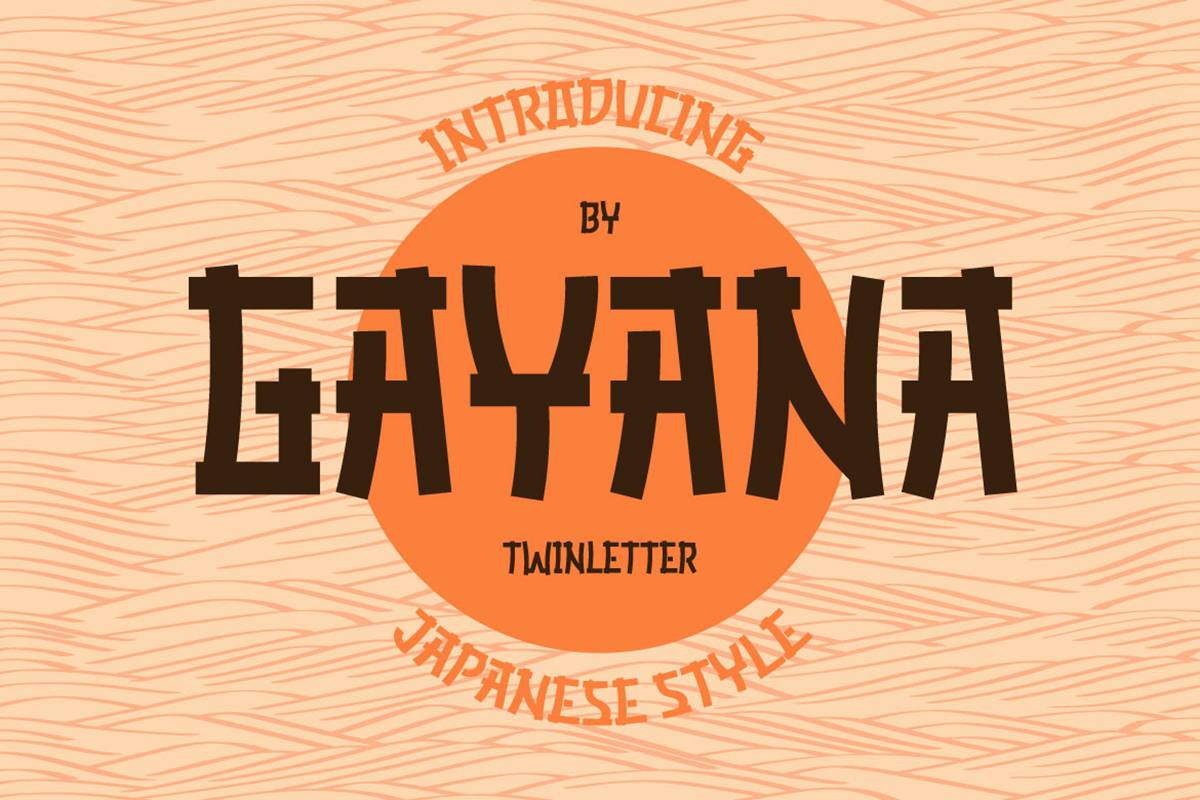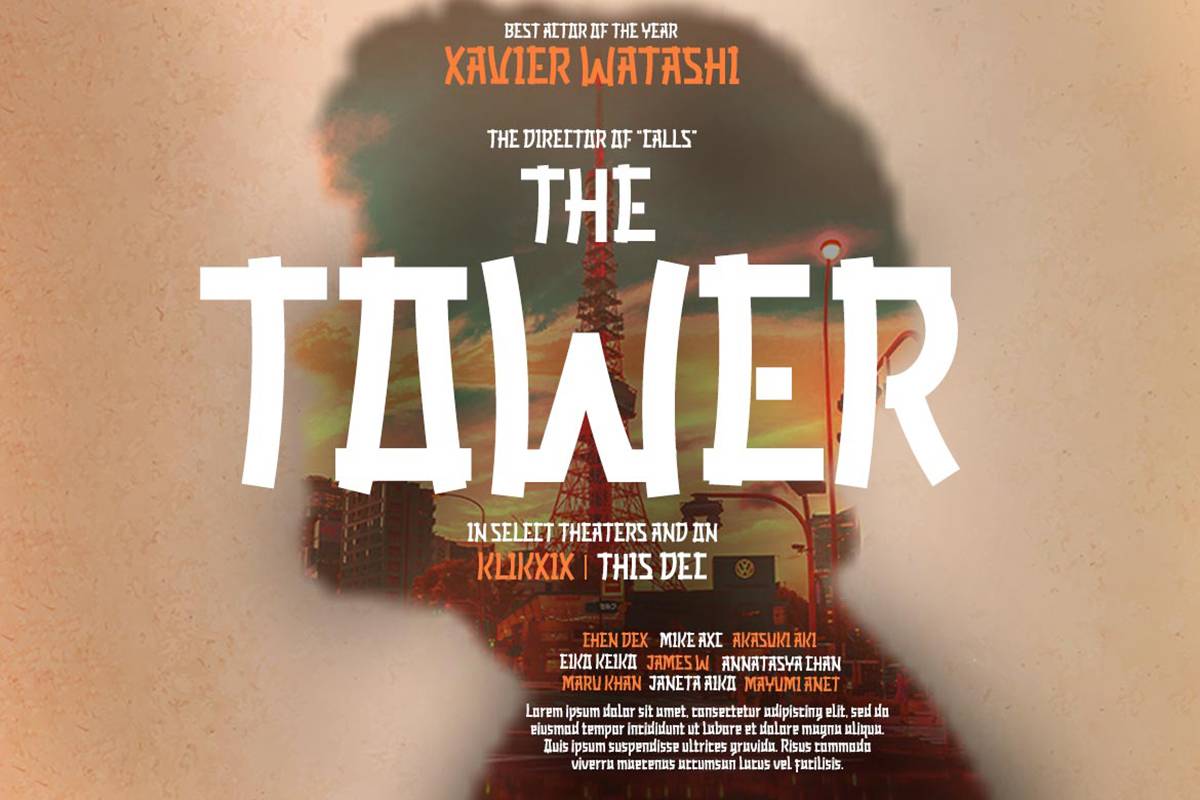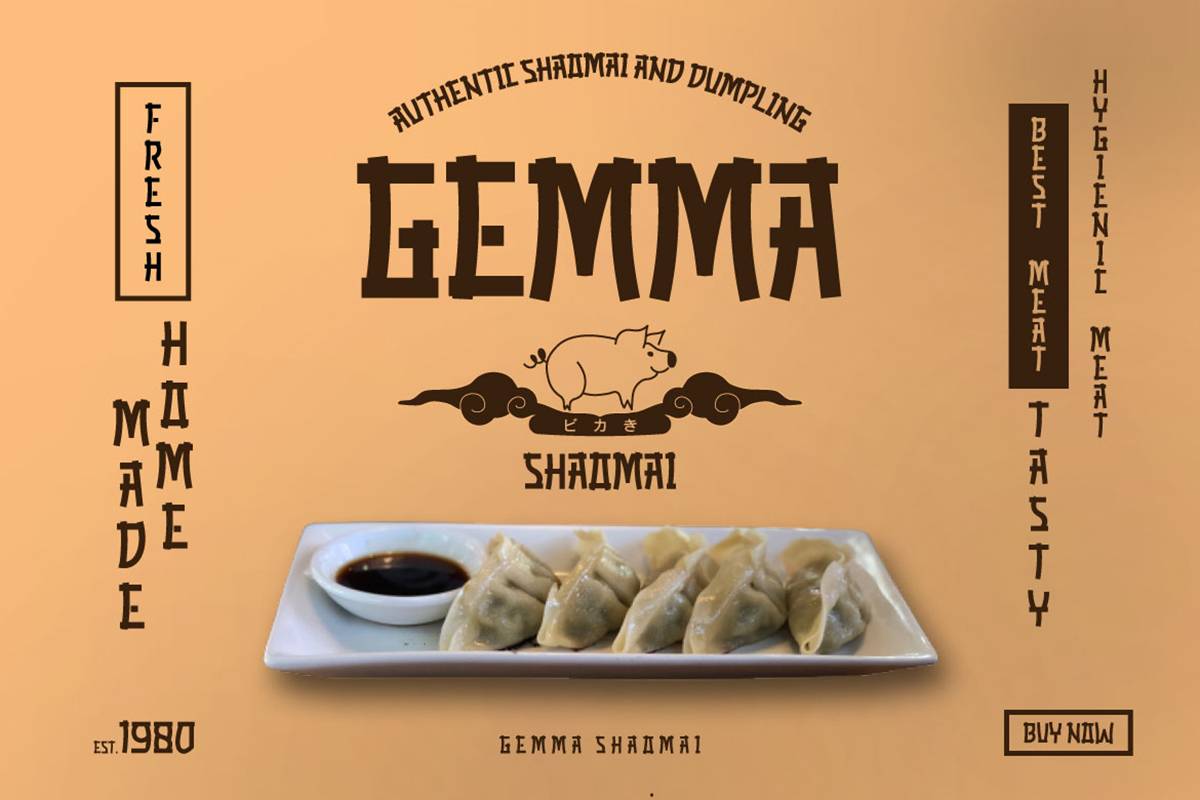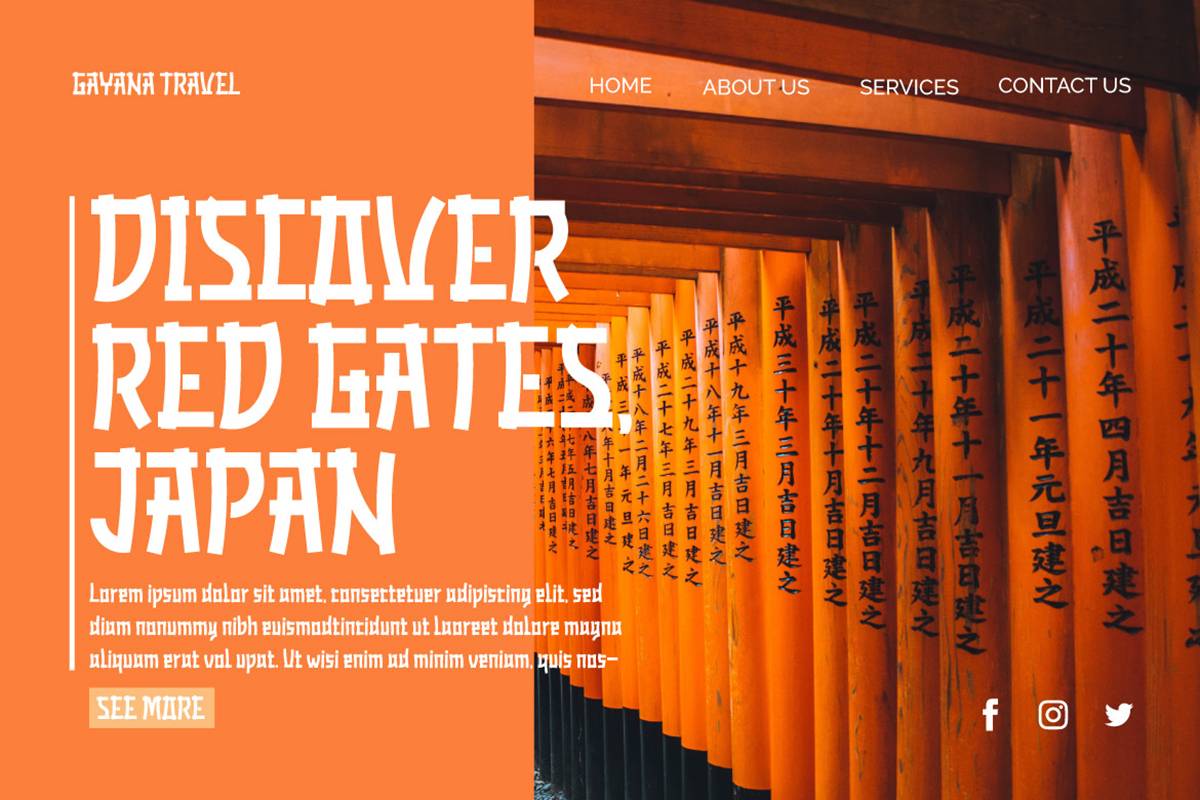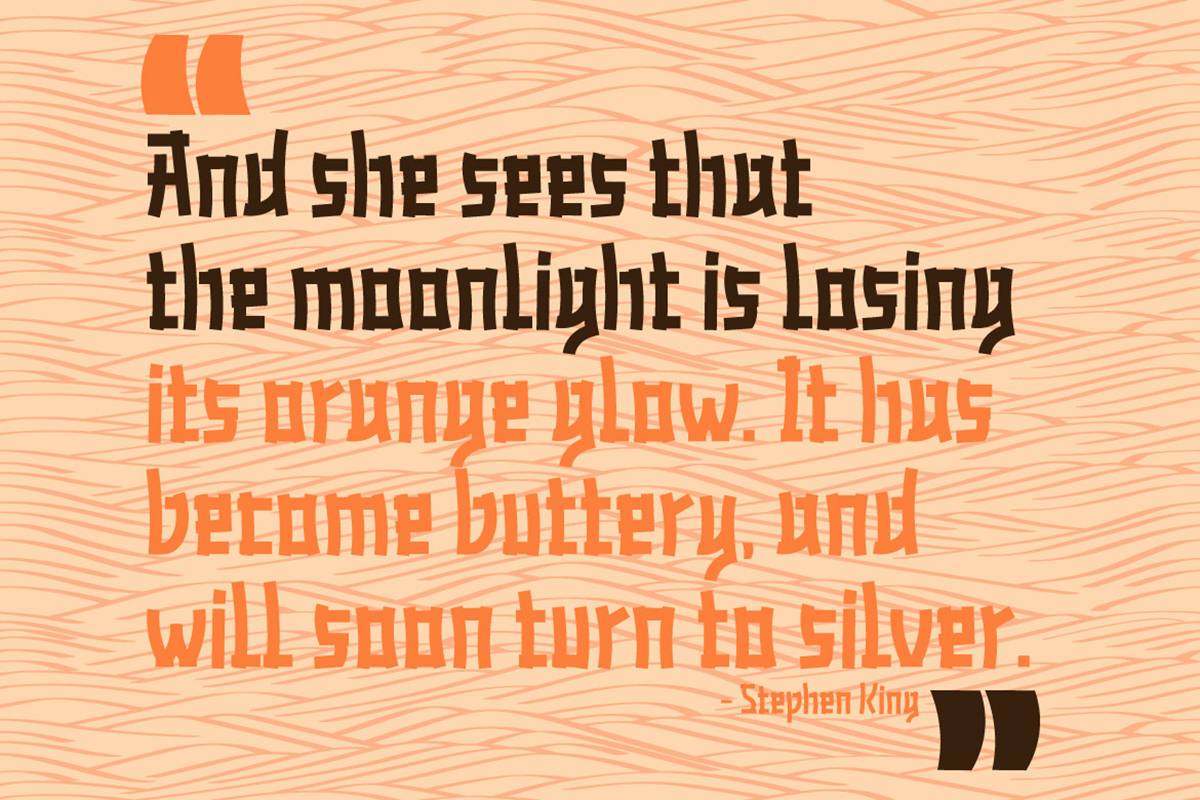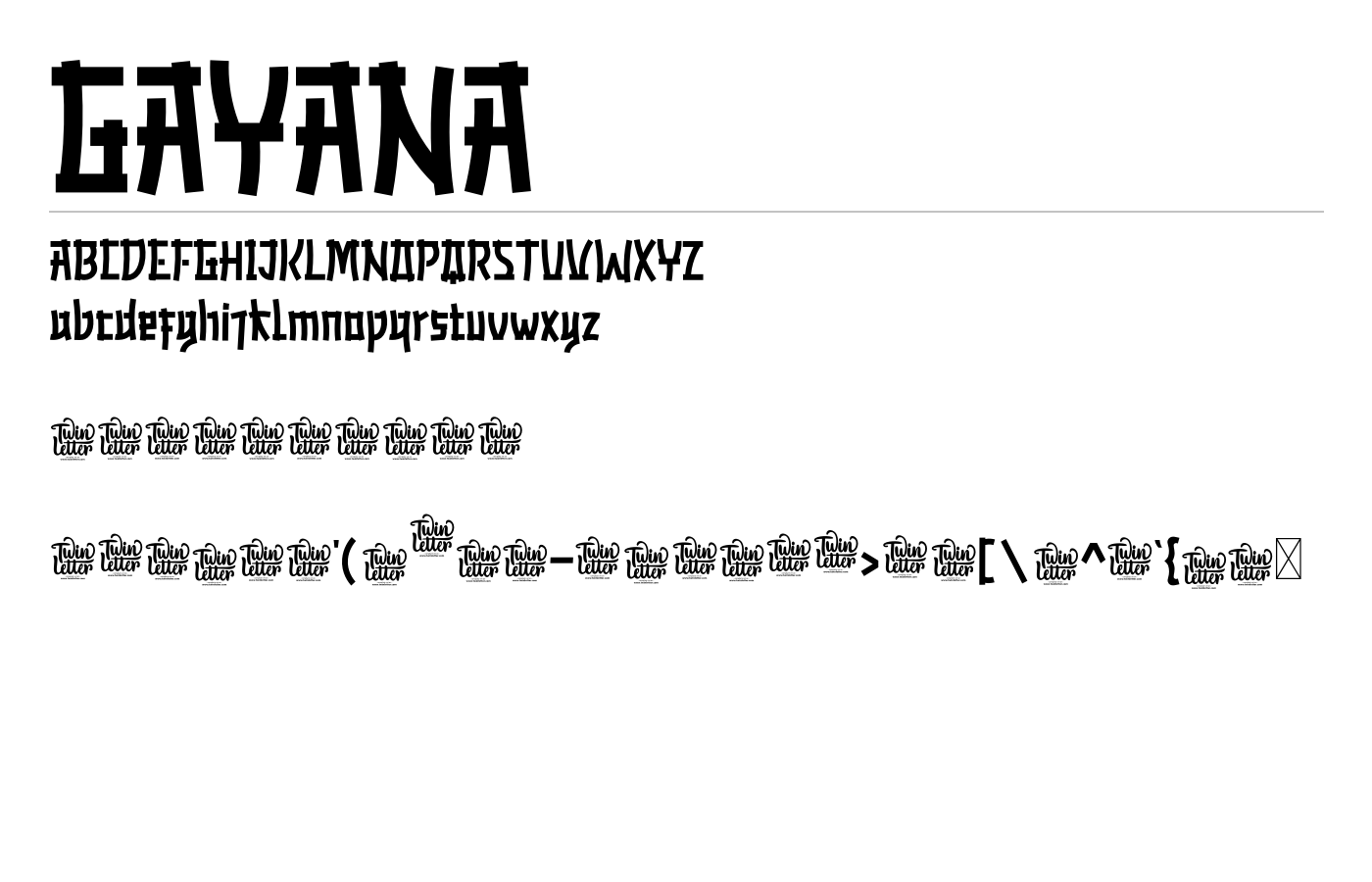
Gayana is a bold, condensed sans serif font with a quirky, hand-crafted feel characterized by irregular, sharp-edged letterforms and a slightly playful yet edgy personality. Its unique shapes and tight spacing make it ideal for eye-catching headlines, logos, and creative projects that seek an unconventional, artistic vibe. This font works well where strong visual impact and individuality are desired, especially in posters, branding, and display designs.
Gayana Font
About Gayana Font